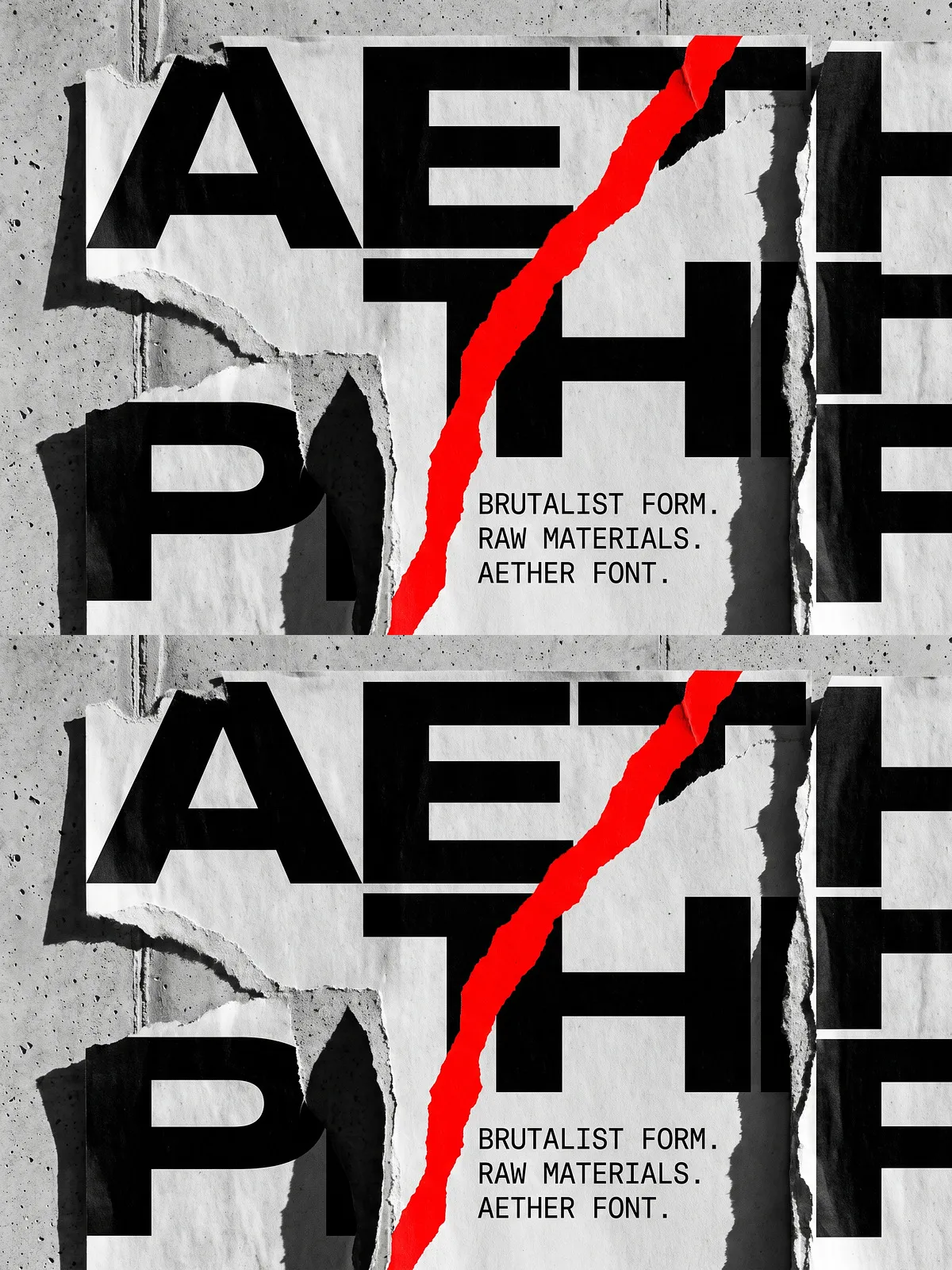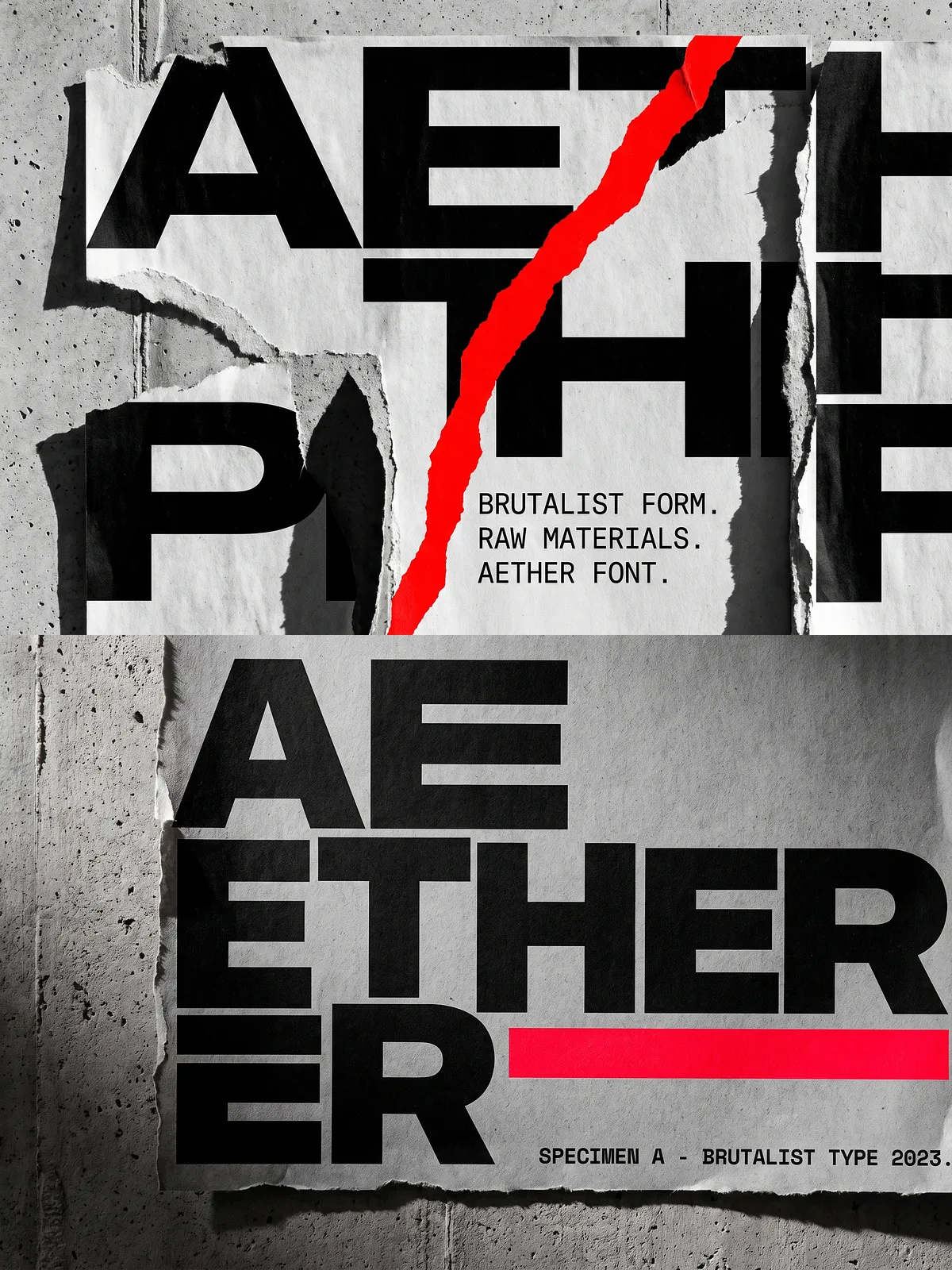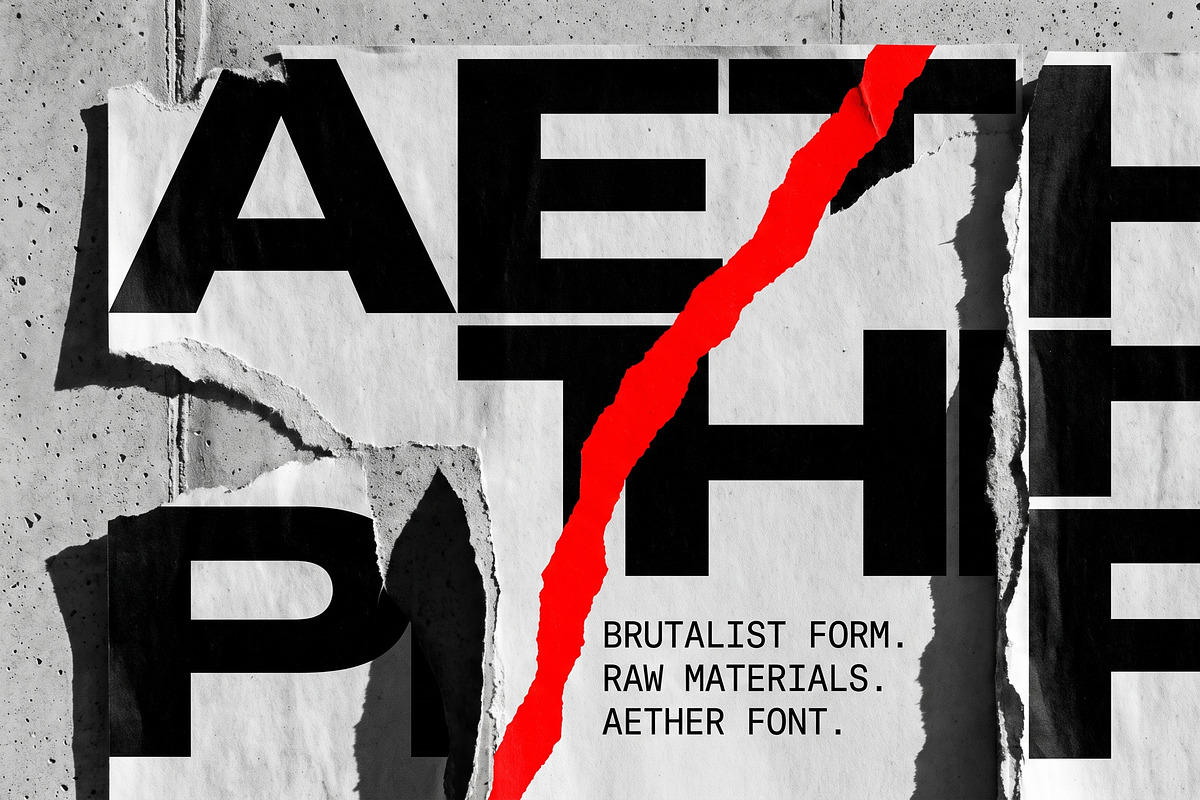
AETHER delivers a raw, bold voice that demands attention. Inspired by the uncompromising forms of brutalist architecture and the tactile textures of concrete and torn paper, this heavy-weight display typeface converts headlines into powerful visual statements. Designed for designers who want to push boundaries, AETHER performs best at large sizes where its geometric weight and high-contrast strokes read with clarity and authority.
Glyph Coverage
Bold, Geometric Letterforms
AETHER uses heavy, geometric shapes to create a striking, brutalist expression. Each glyph reads with strong presence, making the font ideal for headlines, logos, and cover art.
High-Contrast, Raw Aesthetic
Built to evoke raw materials and urban textures, AETHER balances heavy strokes with open counters for legibility. The typeface preserves its character at display sizes while maintaining functionality across digital and print workflows.
Perfect For
- Posters, flyers, and large-format print
- Logo design and bold branding systems
- Streetwear and apparel graphics
- Album and music cover artwork
- Social media visuals and ad creatives
- Editorial headlines and magazine displays
Usage & Best Practices
Display-First Approach
AETHER is purpose-built for large sizes. Use it for headlines, mastheads, and hero text where its weight and structure will read clearly. Avoid setting long paragraphs in AETHER; pair it with a low-contrast serif or a neutral sans-serif for body text to preserve readability.
Contrast & Composition
Create dramatic compositions by pairing AETHER with wide negative space and bold photographic backdrops. Its heavy shapes benefit from breathing room—allow generous margins and consider using uppercase lockups to emphasize authority and impact.
Text Effects & Print Finishes
AETHER holds up well to textured print effects, foil, and spot varnish. When applying distress or texture overlays, test at final output sizes to ensure counters and letter spacing remain legible. For screen use, prefer vector or high-resolution raster assets to preserve detail.